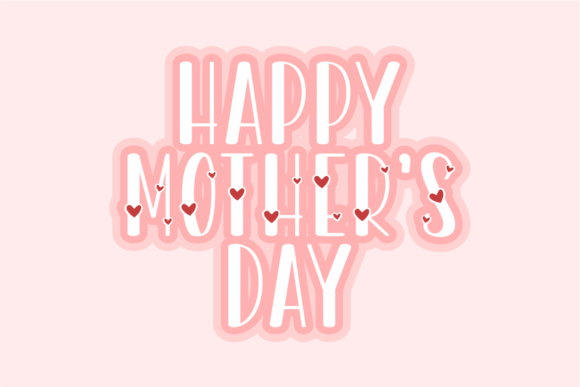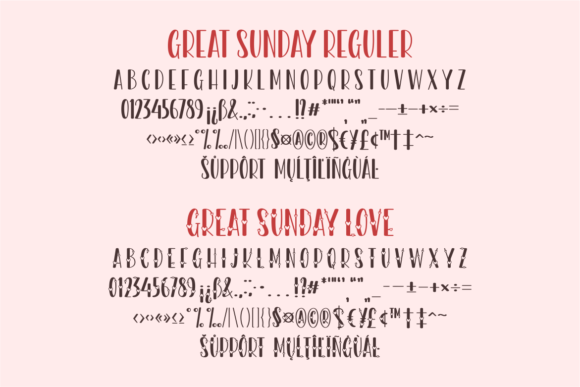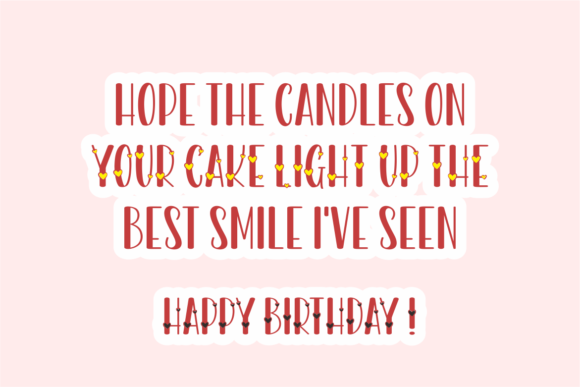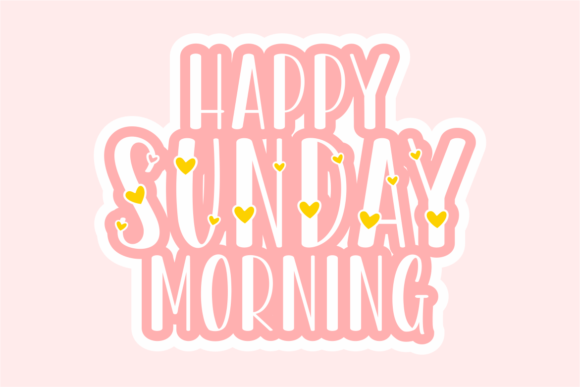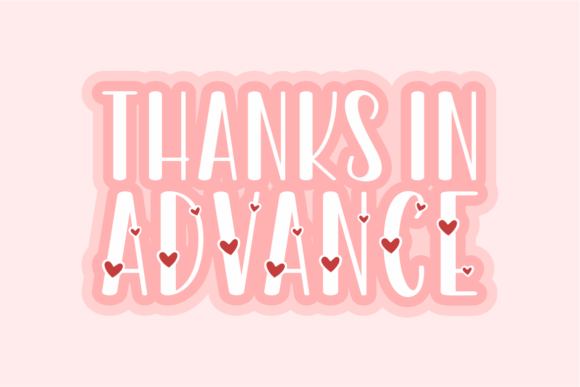
Discover the Magic of the Perfect Sunday
Do you ever find yourself lost in the world of typography, searching for that perfect font to elevate your design? Maybe it’s a romantic invitation, a heartfelt birthday card, or a captivating headline that’s got you stuck. You know the feeling – you want to convey a sense of warmth and elegance, but the right font seems elusive.
Enter the Great Sunday Font, a stylish and delicate duo font designed to bring a touch of romance to your creations. This versatile font is perfect for a wide range of applications, from greeting cards to headlines, and is sure to leave a lasting impression on your audience. Whether you’re a seasoned designer or just starting out, the Great Sunday Font is a valuable addition to your toolkit.
Great Sunday Font Key Features
- Font Family: Great Sunday is a sans-serif font family designed for clear and readable text.
- Size: Great Sunday comes in 6 font weights: Light, Regular, Medium, Bold, Heavy, and Black, making it suitable for various design needs.
- Resolution: Designed for high-resolution displays, Great Sunday is ideal for use in digital media, such as websites, mobile apps, and digital publications.
- Unique Characteristics: Great Sunday features a clean and modern design with a subtle rounded edge, giving it a friendly and approachable feel.
- Language Support: Great Sunday supports a wide range of languages, including Latin, Cyrillic, and Greek scripts.
Great Sunday Font Review
Overall, I’d say the Great Sunday Font is a lovely addition to any design project. ✨ It’s got a warm, inviting feel that’s perfect for headers or titles. The subtle irregularities in the letterforms give it a unique, handcrafted touch that sets it apart from more generic fonts.
Here are some of the things I like about the Great Sunday Font:
- ✨ It’s highly legible, even at small sizes, making it perfect for body text.
- ✨ The font is incredibly versatile and can be used for a wide range of design projects, from branding to publishing.
- ✨ The font’s warmth and personality make it perfect for creating a cozy, inviting atmosphere in your designs.
- ⚠️ The font may not be the best choice for designs that require a lot of precision or technical information, as the irregularities in the letterforms can make it harder to read.
- ⚠️ The font’s warmth and personality can sometimes make it feel a bit too casual or informal, which may not be suitable for all design projects.
Overall, I’d say the Great Sunday Font is a great addition to any designer’s toolkit. While it may not be the best choice for every project, it’s a versatile and highly legible font that’s perfect for creating a warm and inviting atmosphere in your designs.
Great Sunday Font is a great choice for:
- Creating a warm and inviting atmosphere in branding materials.
- Designing greeting cards and invitations.
- Adding a vintage touch to digital products.
For best results, pair Great Sunday Font with complementary colors and textures to create a cohesive and visually appealing design.
Alternatives to Great Sunday Font
Playfair Display is a luxurious and elegant font that works well for headings and titles. It’s perfect for use in high-end branding, magazines, and books. In comparison to Great Sunday Font, Playfair Display is more ornate and refined, making it suitable for projects that require a touch of sophistication.
Lato is a modern sans-serif font that’s highly legible and versatile. It’s ideal for use in body text, headings, and titles where a clean and minimalist aesthetic is desired. Compared to Great Sunday Font, Lato is more straightforward and less ornate, making it suitable for projects that require a neutral and professional tone.
Merriweather is a classic serif font that’s perfect for use in body text and headings where a traditional and elegant look is desired. It’s suitable for projects such as books, magazines, and websites that require a sense of history and sophistication. In comparison to Great Sunday Font, Merriweather is more formal and traditional, making it suitable for projects that require a touch of class.
Great Sunday Font is designed to be highly legible, making it suitable for both body text and headings. However, its unique character shapes and subtle flair make it particularly well-suited for headings, titles, and other display text.